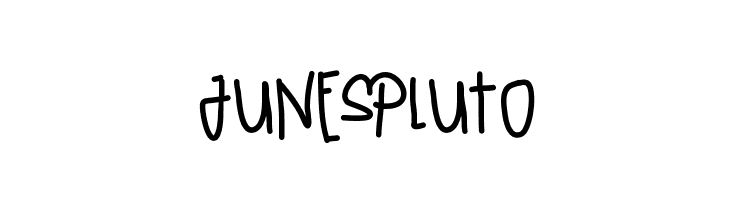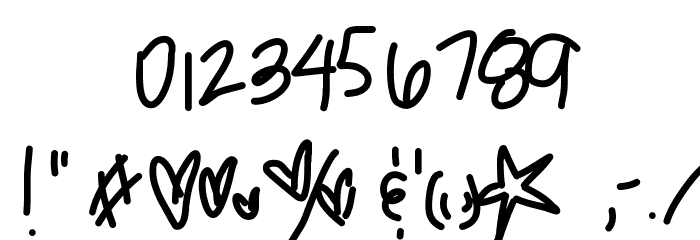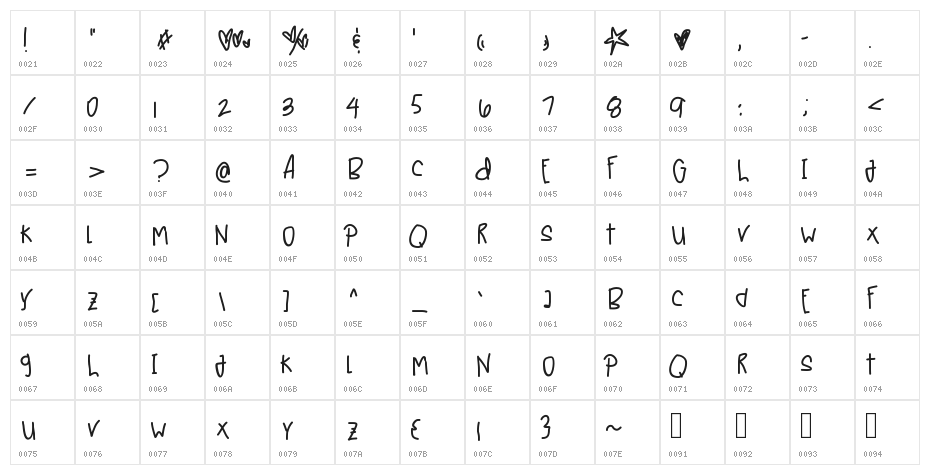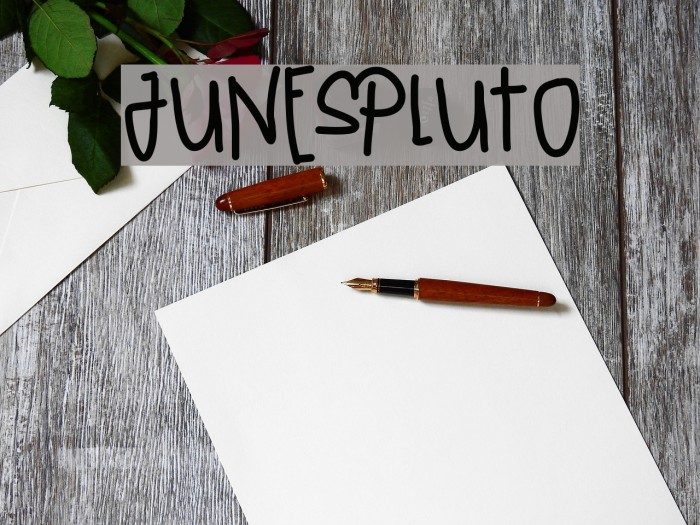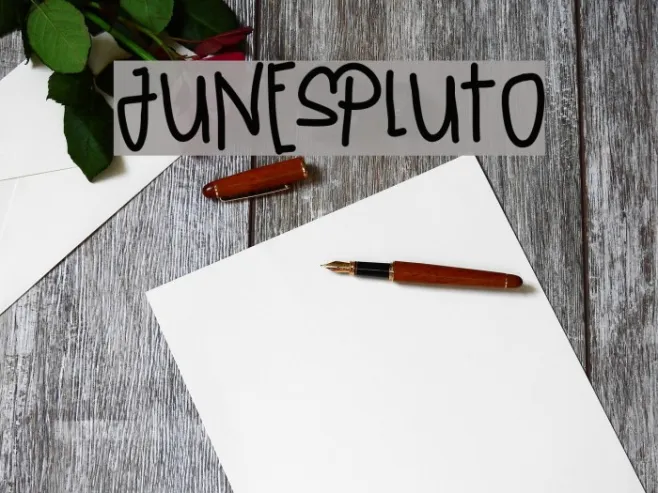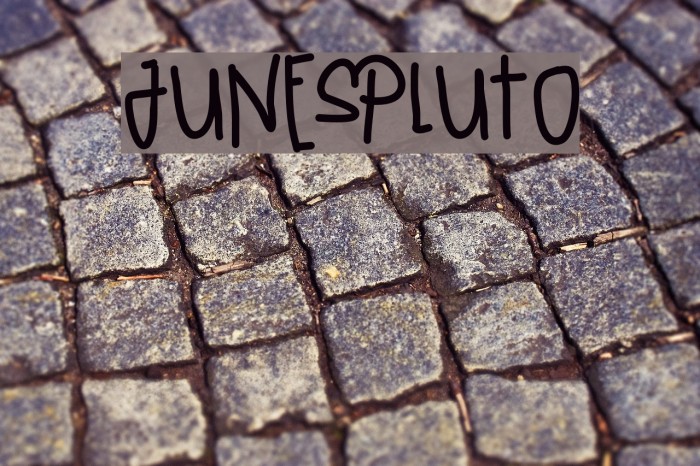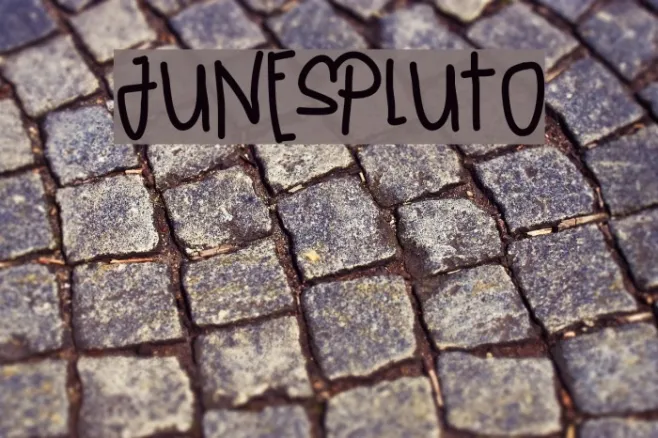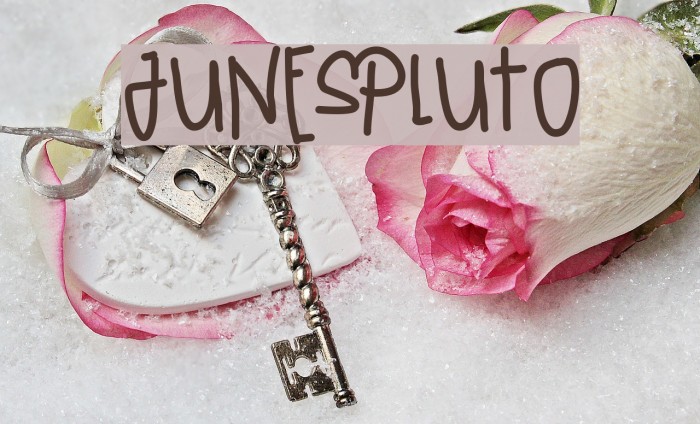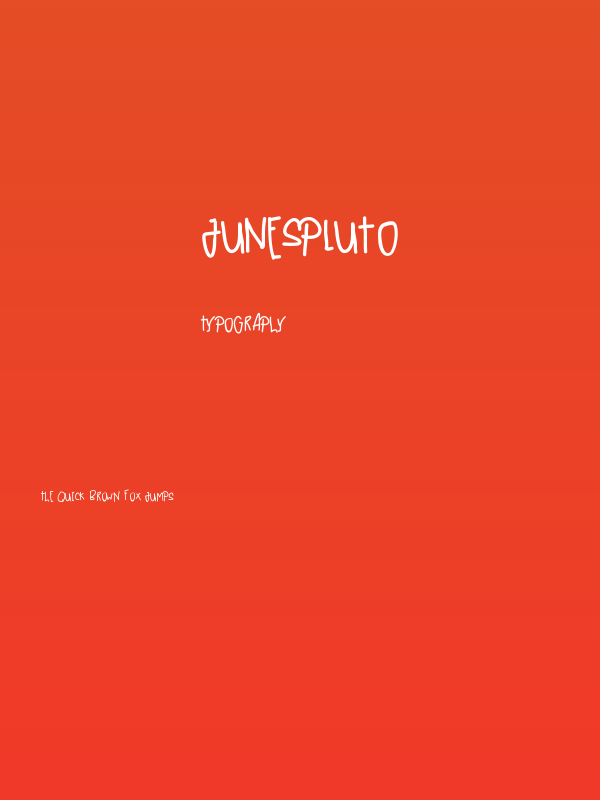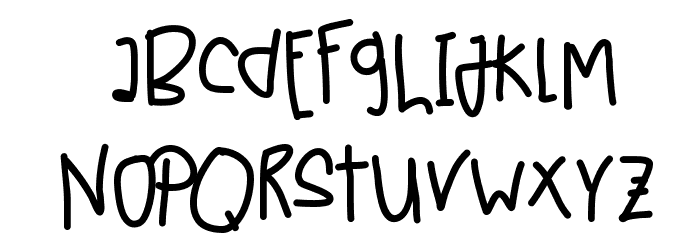
JunesPluto Font
JunesPluto Description
This playful and energetic font features a handwritten style with a casual and informal appearance. The letters are slightly irregular, giving it a personal and authentic touch. The strokes are bold and consistent, with a medium contrast between thick and thin lines. The characters are well-spaced, providing a balanced and readable look. The font includes a full set of uppercase and lowercase letters, numbers, and a variety of special characters, making it versatile for different design needs. Its whimsical nature makes it ideal for projects that require a fun and approachable aesthetic.
| Use Case | Logos, Headlines, Social media graphics |
| Proposed Projects | Great for greeting cards, children's books, playful branding, and social media graphics. |